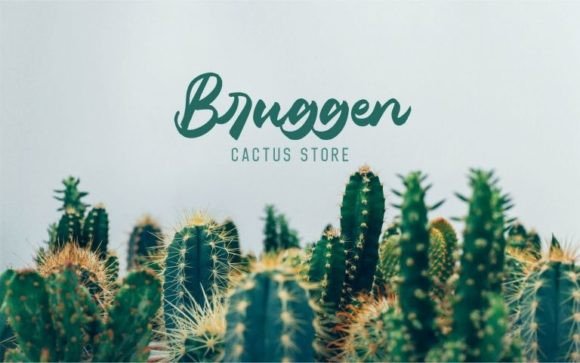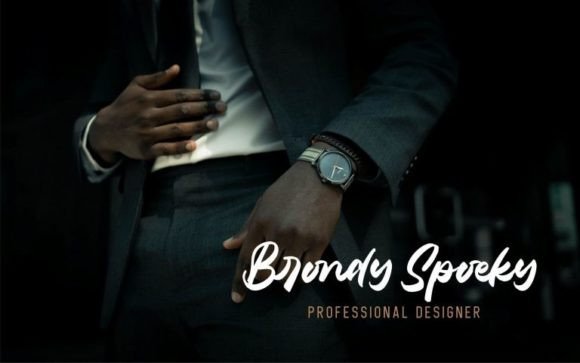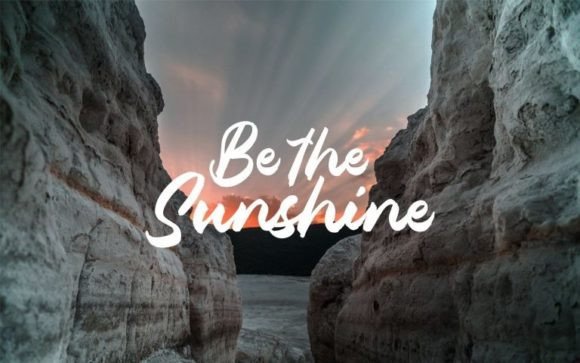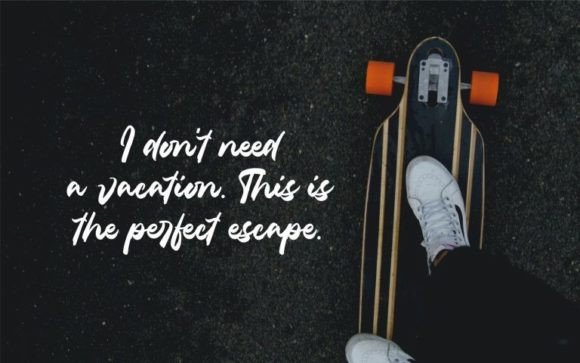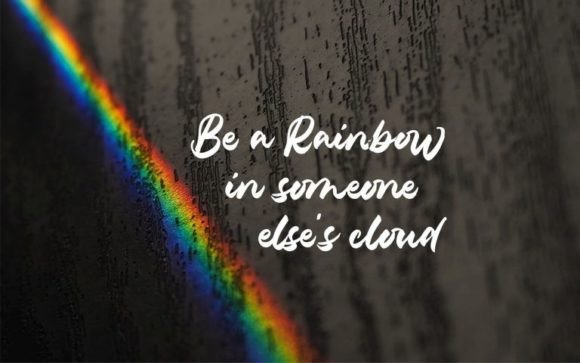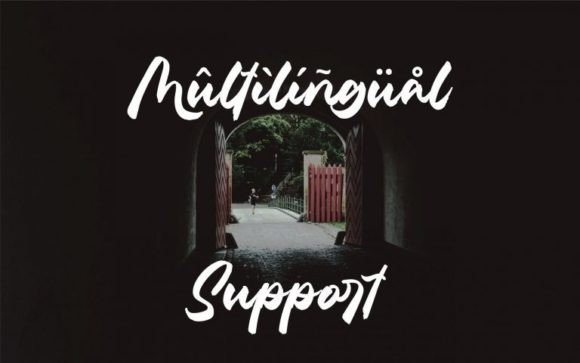
Introducing Belanthara Font: Elevate Your Designs with Elegance and Personality
In the world of design, typography plays a crucial role in conveying messages, evoking emotions, and creating lasting impressions. Among the myriad of fonts available, Belanthara stands out as a modern and stylish script font that can add a touch of personality to your designs. Whether you’re a seasoned designer or a crafty DIY enthusiast, Belanthara is an excellent choice for those looking to infuse their work with a classic, cursive feel and a modern twist.
The Unique Charm of Belanthara
Belanthara boasts a unique blend of traditional and contemporary elements, making it a versatile font for various design projects. Its bold and elegant strokes are meticulously crafted to make your designs stand out in a crowd. At the same time, its smooth curves bring a light, airy feel that can add a touch of sophistication and elegance to your work. This balance of boldness and fluidity makes Belanthara perfect for making a statement in any design.
Key Features of Belanthara Font
- Modern and Stylish Script Font: Belanthara brings a fresh and stylish look to the world of script fonts, making it ideal for designers looking for something new and exciting.
- Classic Cursive Feel with a Modern Twist: It combines the elegance of classic cursive fonts with modern elements, giving it a unique and contemporary look.
- Bold and Elegant Strokes: The font’s bold strokes add depth and character to your designs, ensuring they grab attention.
- Smooth Curves: The smooth, flowing curves of Belanthara bring a sense of lightness and airiness to your designs, adding a touch of grace and elegance.
- Perfect for Making a Statement: Whether you’re working on a logo, branding materials, or creative projects, Belanthara is designed to make your designs stand out.
Applications of Belanthara Font
The versatility of Belanthara makes it suitable for a wide range of design applications. Here are some of the areas where Belanthara can make a significant impact:
- Branding and Logo Design: Create memorable logos and branding materials that stand out with Belanthara’s unique and stylish appeal.
- Stationery and Invitations: Add a touch of elegance and personality to your stationery, invitations, and greeting cards.
- Web Design: Enhance your website’s typography with Belanthara, making your online presence more engaging and stylish.
- Social Media Graphics: Create eye-catching social media graphics, banners, and posts that reflect your brand’s personality.
- Packaging Design: Stand out on store shelves with packaging designs that utilize Belanthara’s bold and elegant strokes.
Tips for Using Belanthara Effectively
To maximize the impact of Belanthara in your designs, consider the following tips:
- Pair with Complementary Fonts: Combine Belanthara with clean, sans-serif fonts for contrast and visual interest.
- Use for Headings and Titles: Utilize Belanthara for headings, titles, and key messages to draw attention and add personality.
- Experiment with Colors: Don’t be afraid to experiment with different colors to find the perfect match that enhances Belanthara’s elegance and boldness.
- Consider Size and Weight: Play with different sizes and weights of Belanthara to create visual hierarchy and emphasis in your designs.
Belanthara font is a powerful tool for designers and crafters looking to add a modern, stylish, and elegant touch to their work. Its unique blend of classic cursive feel and modern twist, combined with its bold and elegant strokes and smooth curves, makes it perfect for a wide range of design projects. By incorporating Belanthara into your typography arsenal, you can create designs that are not only visually stunning but also memorable and impactful. So, why settle for ordinary when you can make a statement with Belanthara?